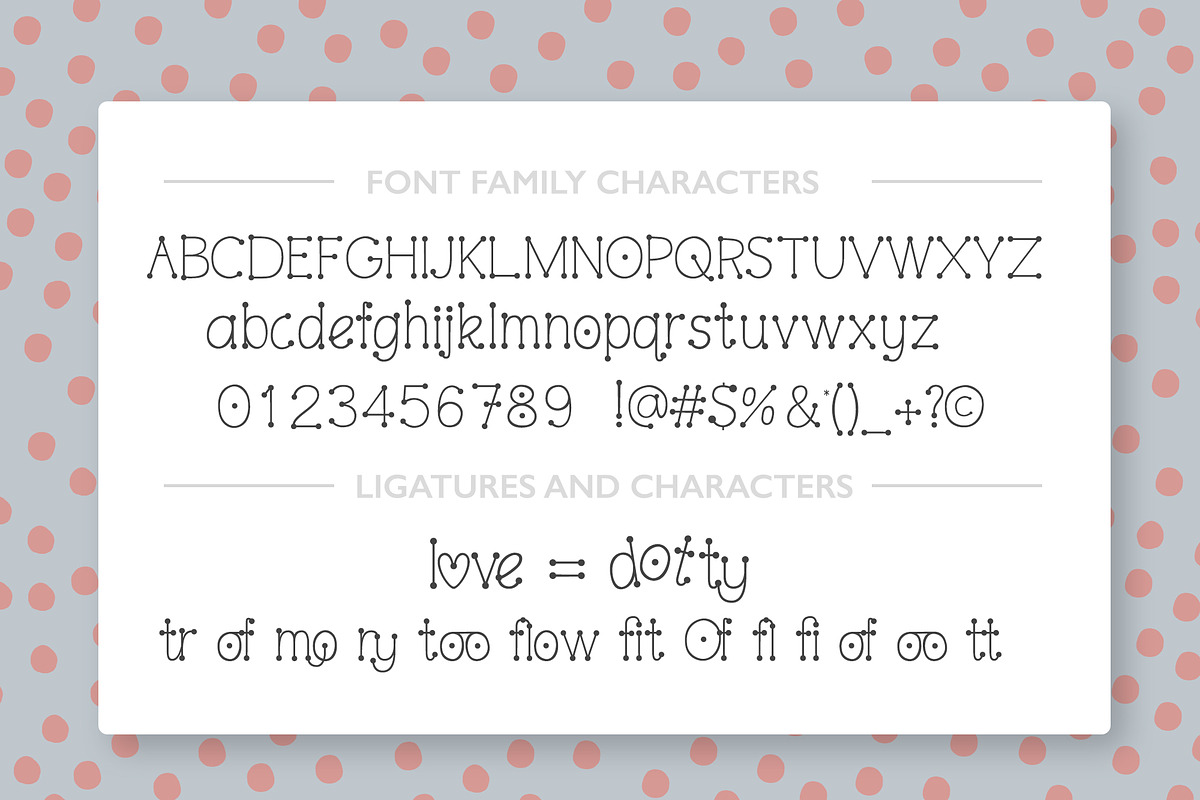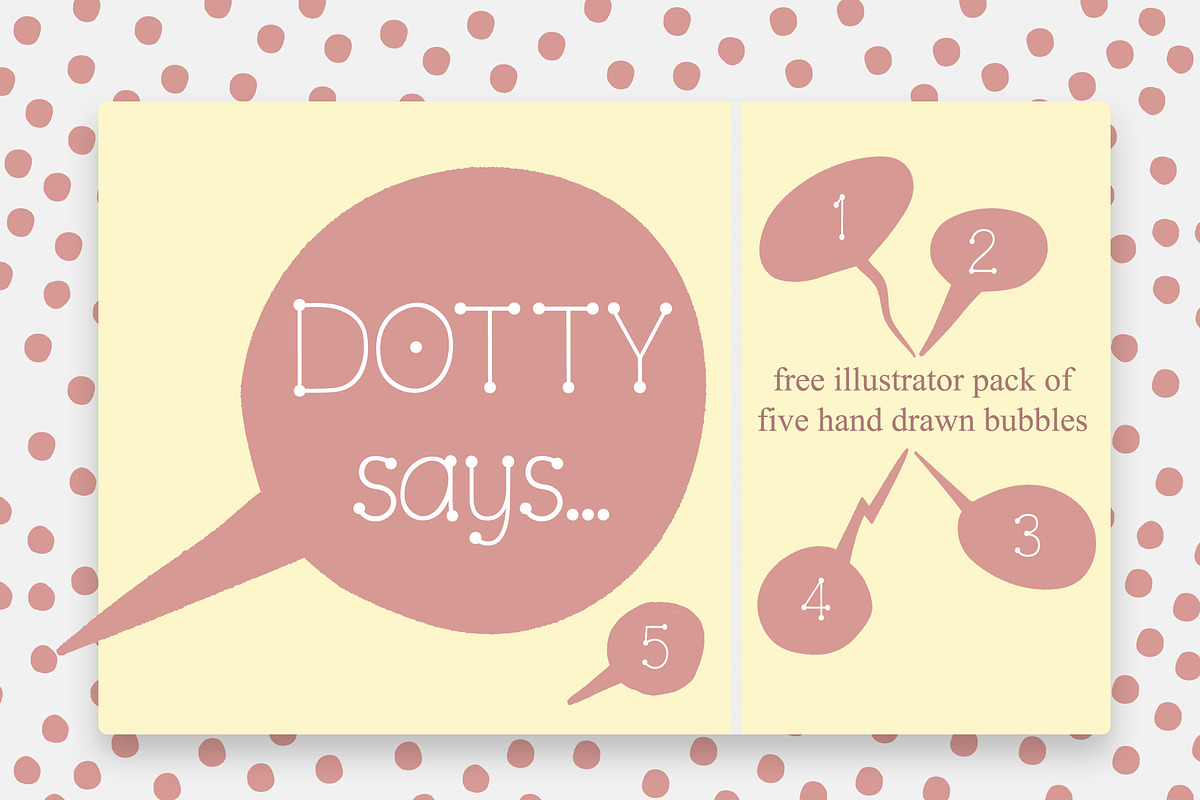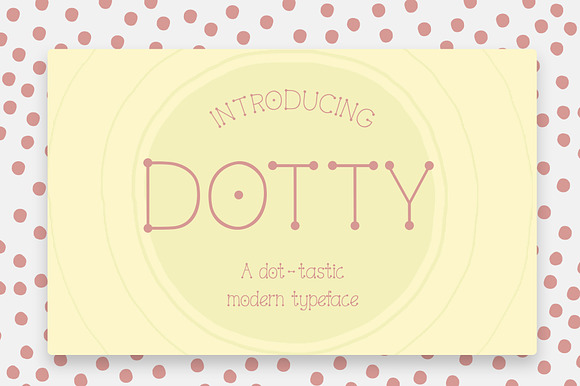
Dotty font + .ai speech bubbles
Dotty is an upper and lowercase font with lots of dots. This font is inspired by simple one-stroke hand lettering. I use the font for cartoon headline text, using it both within and outside speech bubbles. With a strong modern appearance, dotty offers stylistic alternates and works perfectly for headlines, logos, posters, packaging, T-shirts, postcards and much more. Furthermore I have included a bonus illustrator file of 5 speech bubble images, which I used for this presentation.